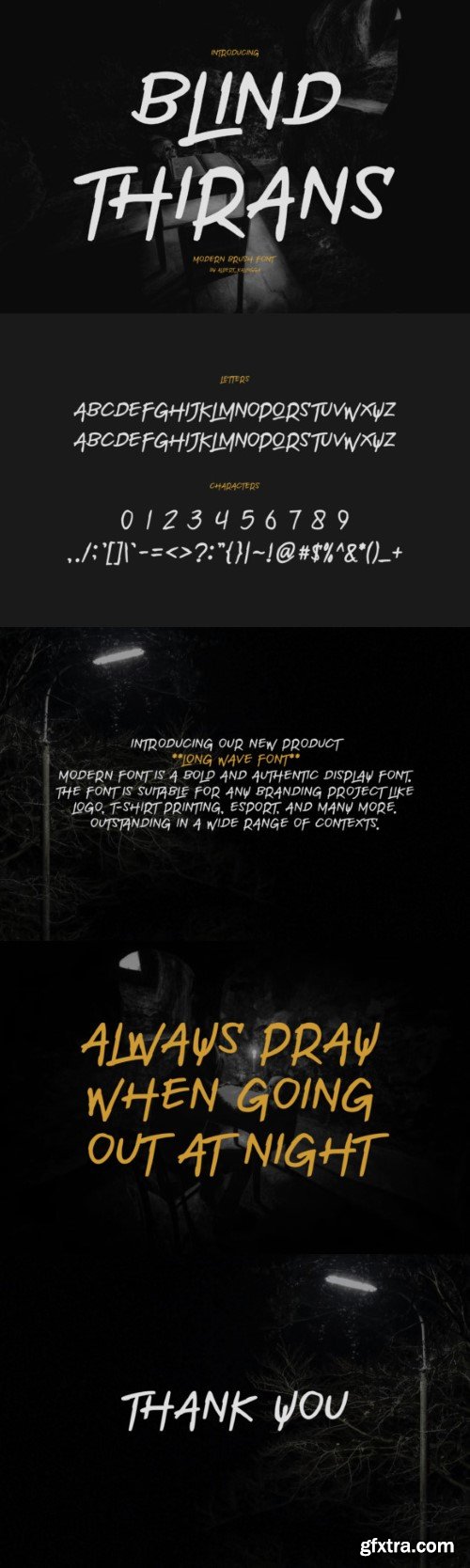
盲人特兰斯字体
Blind Thirans is a unique and interesting handwritten font. A little bit quirky, this font looks incredibly adept on a wide variety of contexts!